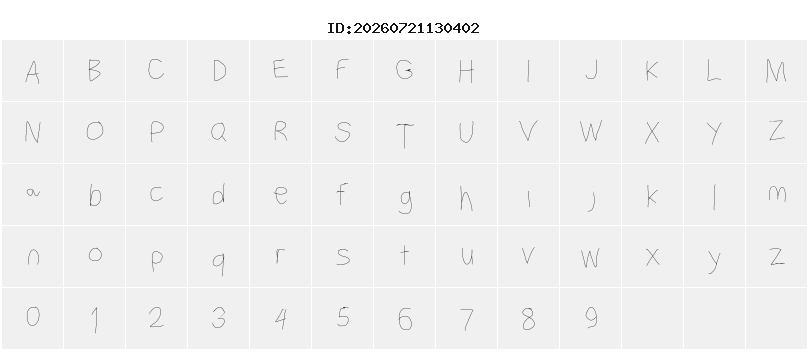
• Font Name: Filament Serie
• Font Style: Four
• Font ID: Filament Four Version 1.111
• Full Font Name: Filament Four
About Filament Serie.otf
Filament Serie.otf is a modern, elegant sans-serif font designed for ultimate readability and visual harmony. Perfect for branding, headlines, web design, and print materials.